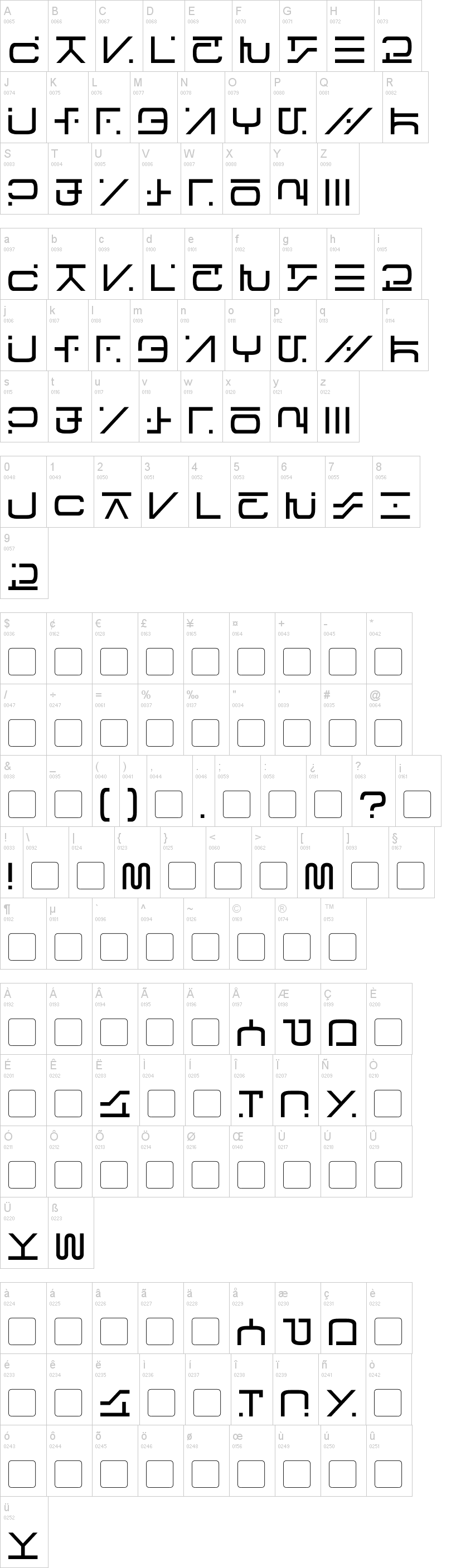
Visitor Script Italic.otfVisitor Script Bold.otfVisitor Script Bold Italic.otfNote of the authorThis alien typeface is based on the alien writing seen in the various incarnations of the "V" franchise. Includes all canonical glyphs.